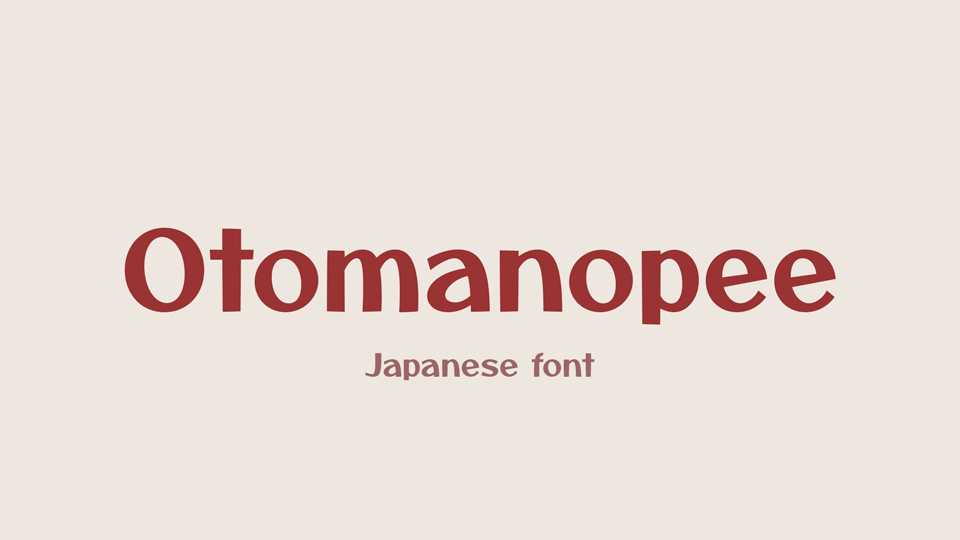
Download Otomanopee font, a Japanese open source typeface inspired graphical letters in manga. It contains 240 glyphs of Kanji learned in 1st and 2nd grade in Japanese elementary school, 228 glyphs of GF Latin Core Glyph Set, Hiragana, Katakana and others.
Designer: Gutenberg Labo